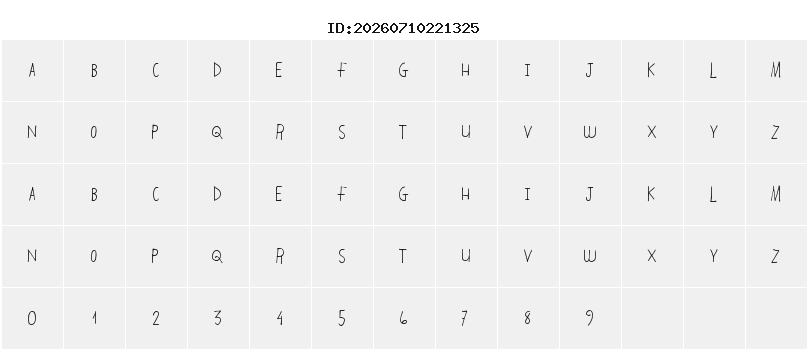
• Font Name: HandingOver
• Designer: Xerographer Fonts Max Infeld
• Description: Made at Xerographer Studios in Ojai,CA
About HandingOver.ttf
HandingOver.ttf is a modern, elegant sans-serif font designed for ultimate readability and visual harmony. Perfect for branding, headlines, web design, and print materials.